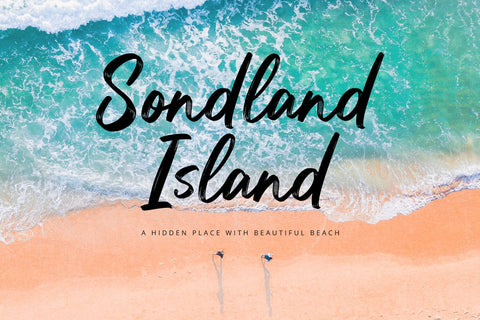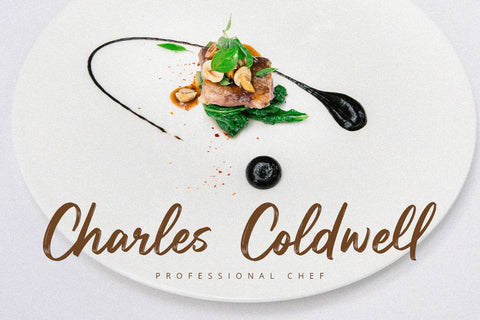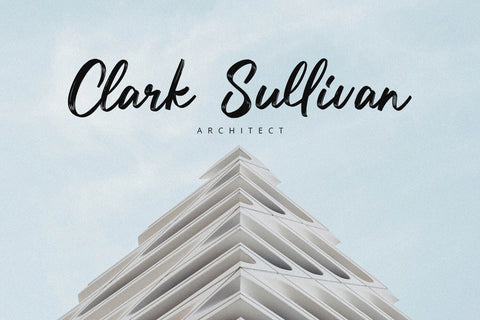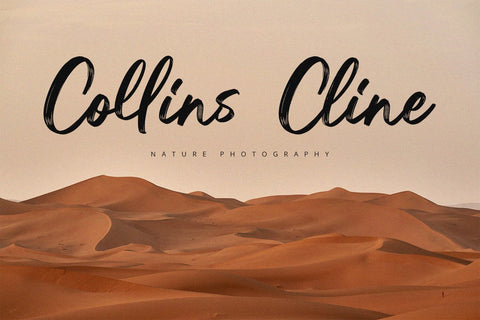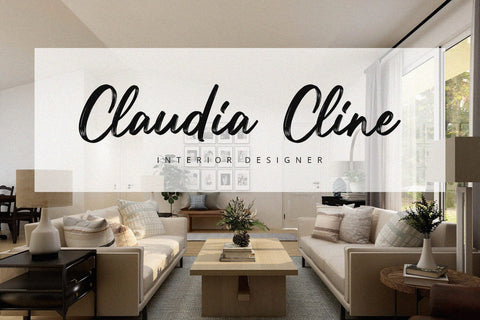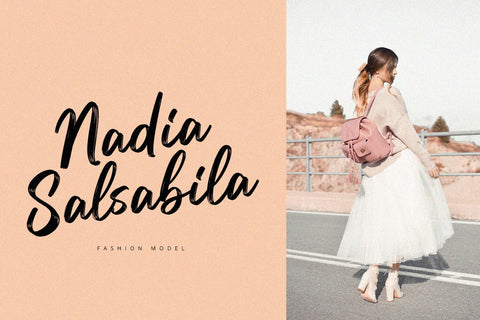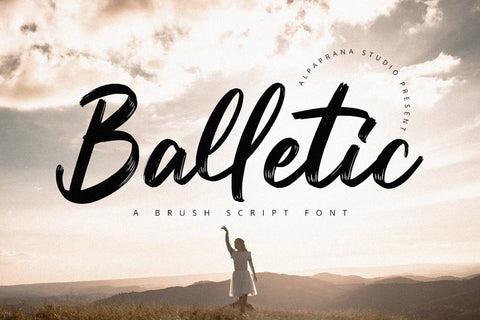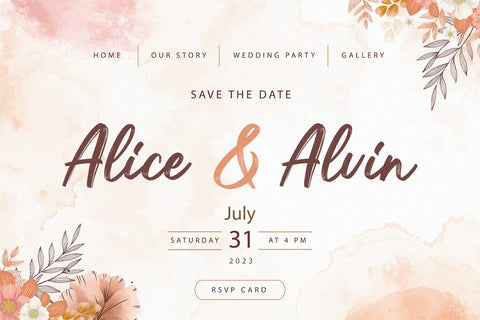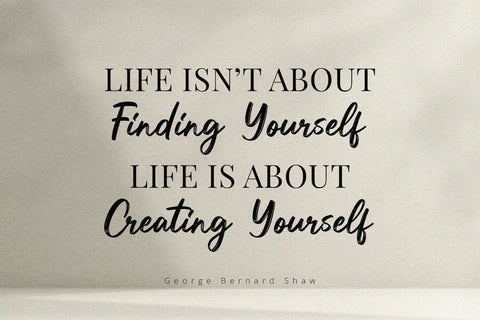
Balletic - Brush Script Font
Balletic is a brush script font with natural brush and casual feels. It will be perfectly used for Branding, Logo Design, Lettering, Logotype, Clothing, Poster, magazine, packaging, posters, shopping bags, t-shirts, book covers, photography, special events and other design project.